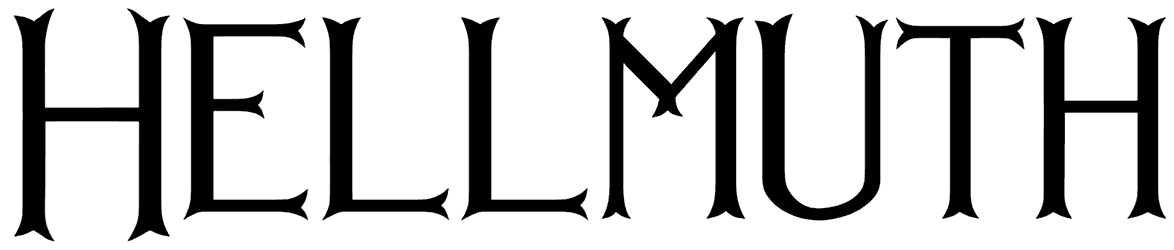
Hellmuth Font
Designed byLauren Ashpole
A magical serif font such as Hellmuth would be really helpful for creating high-end graphic content such as posters, video game brochures, product packaging, editorial projects, and social media posts.
Since the characters of this all-caps retro font have good readability, Hellmuth can be included in a wide range of professional purposes. Due to its unique style, you can share a sense of formality, genius, respect, and trustworthiness with the audience.
Font created in January 2014.